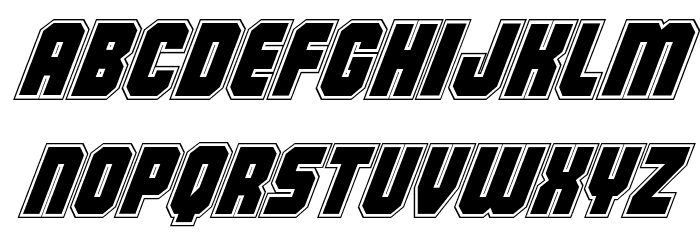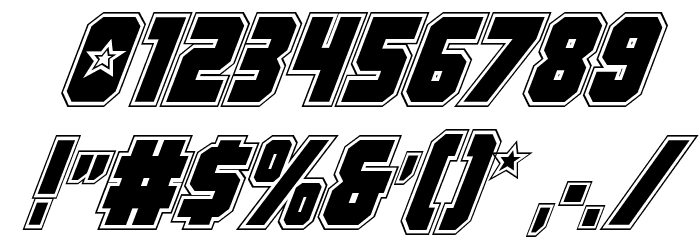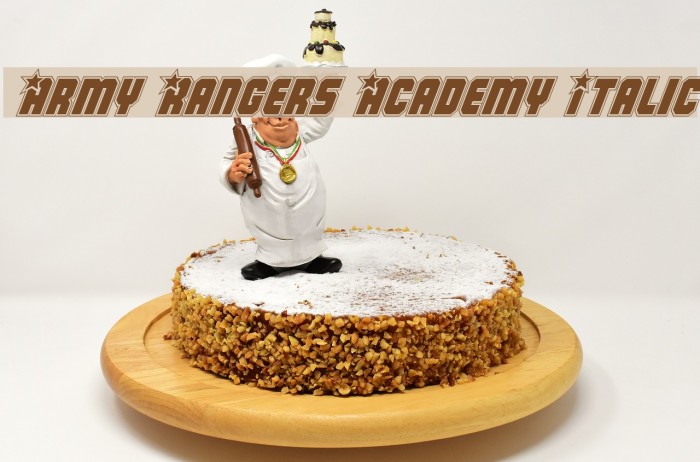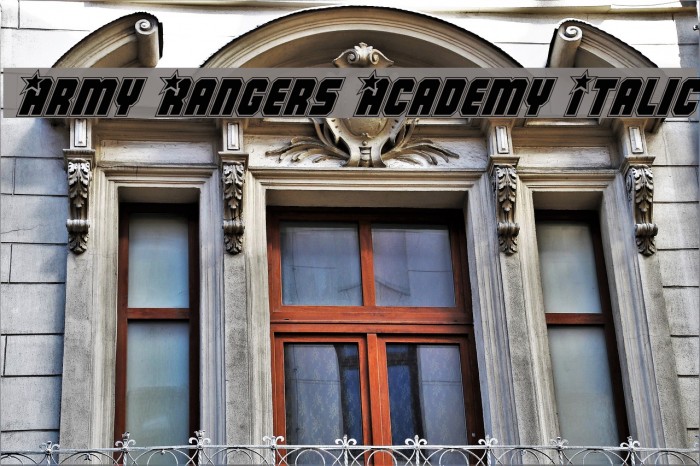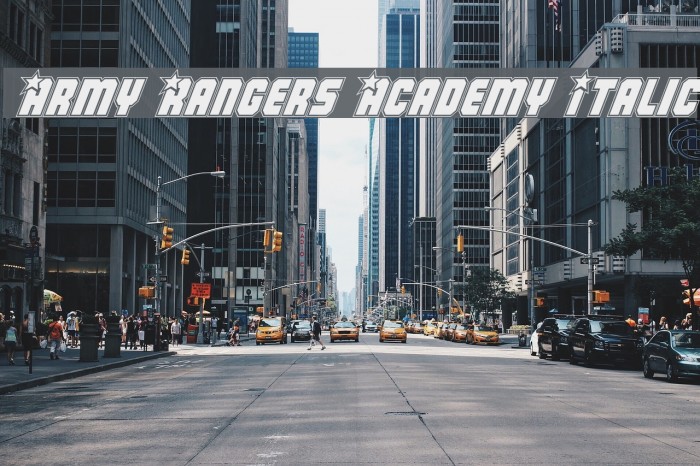
Army Rangers Academy Italic Font
This bold and dynamic font features a strong, angular design with a distinct italic slant, giving it a sense of movement and energy. The uppercase letters are adorned with star motifs, adding a decorative touch that enhances its bold appearance. The characters are outlined, providing a three-dimensional effect that makes them stand out. The numbers and special characters maintain the same robust style, ensuring consistency across all elements. This font's unique style is perfect for projects that require a strong, impactful visual presence.
A bold, italic font with angular design and star motifs, offering a dynamic and energetic appearance.
- Proposed Projects: Ideal for military-themed designs, sports team logos, action movie posters, or any project needing a bold, impactful typeface.
- Category: Decorative/Display
- Contrast: High
- Use Case: Logos, Headlines, Posters